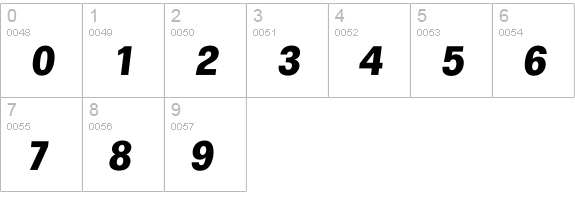
Iformula Bold is a strong, high-contrast variant in the Iformula typeface family \xE2\x80\x94 well suited to headlines, attention-grabbing titles, and strong calls-to-action.
Introducing Iformula Bold font, a powerful and captivating typeface designed to make a statement. With its bold and assertive strokes, this font exudes confidence and grabs attention with its unique and modern aesthetic. Iformula Bold font is perfect for creating eye-catching headlines, logos, posters, and any design project that requires an impactful and memorable touch. Its strong presence on the page commands attention, making it ideal for advertising campaigns, branding materials, and promotional materials that need to stand out from the crowd. But what sets Iformula Bold font apart is not just its striking appearance, but also its versatility. It effortlessly blends elegance and strength, making it suitable for a wide range of design styles and purposes. Whether you're aiming for a sleek and sophisticated look or a bold and edgy design, Iformula Bold font can adapt and enhance your creative vision. And the best part? Iformula Bold font is freely available to download at FontsMarket.com. Yes, you heard it right! This remarkable font can be yours without any cost, allowing you to unleash your creativity without breaking the bank. FontsMarket.com is your go-to destination for high-quality, free fonts that will elevate your designs to new heights. So why wait? Download Iformula Bold font today and let its boldness and versatility elevate your designs to the next level. Transform your projects into attention-grabbing masterpieces that leave a lasting impression. With Iformula Bold font, the possibilities are endless, and the impact is undeniable. Don't miss out on this incredible opportunity to enhance your design arsenal with a font that combines power, elegance, and the freedom to create without limitations.